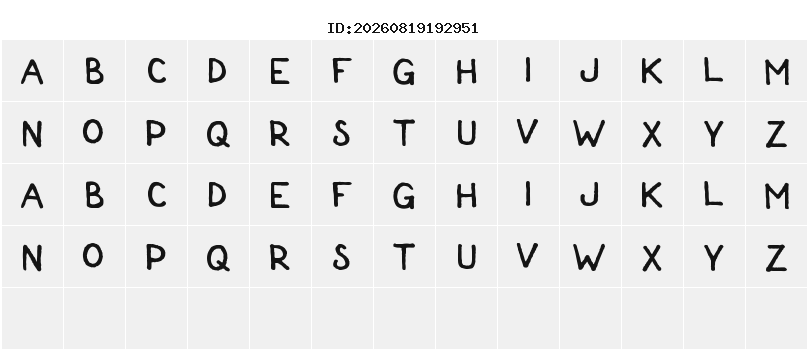
Shipmates Preview
• Font Name: Shipmates
• Font ID: Shipmates Regular
• Full Font Name: Shipmates Regular
• PostScript Name: Shipmates
• Character Count: 59
• Designer: Out Of Step Font Company
About Shipmates.ttf
Shipmates.ttf is a modern, elegant sans-serif font designed for ultimate readability and visual harmony. Perfect for branding, headlines, web design, and print materials.